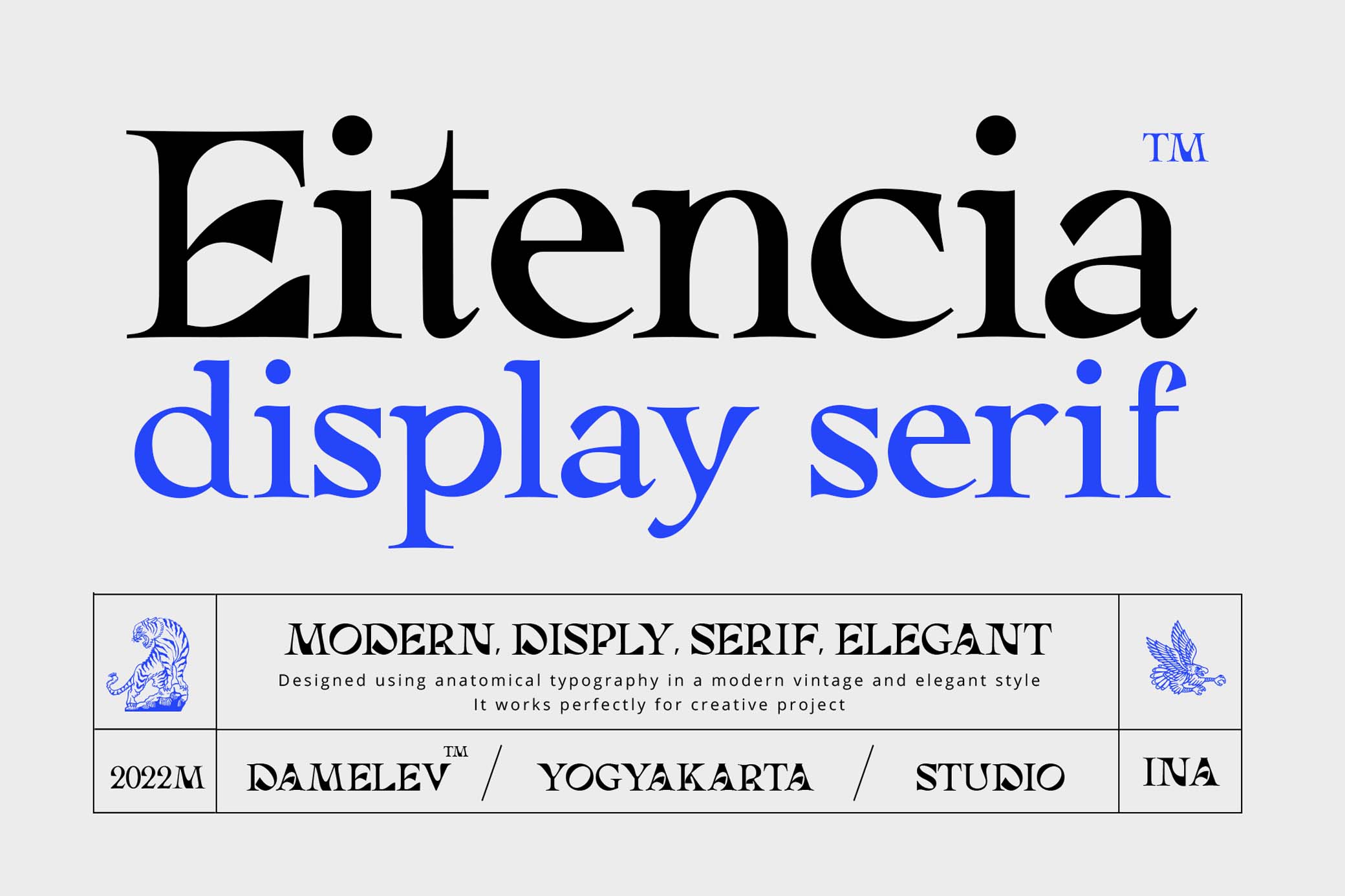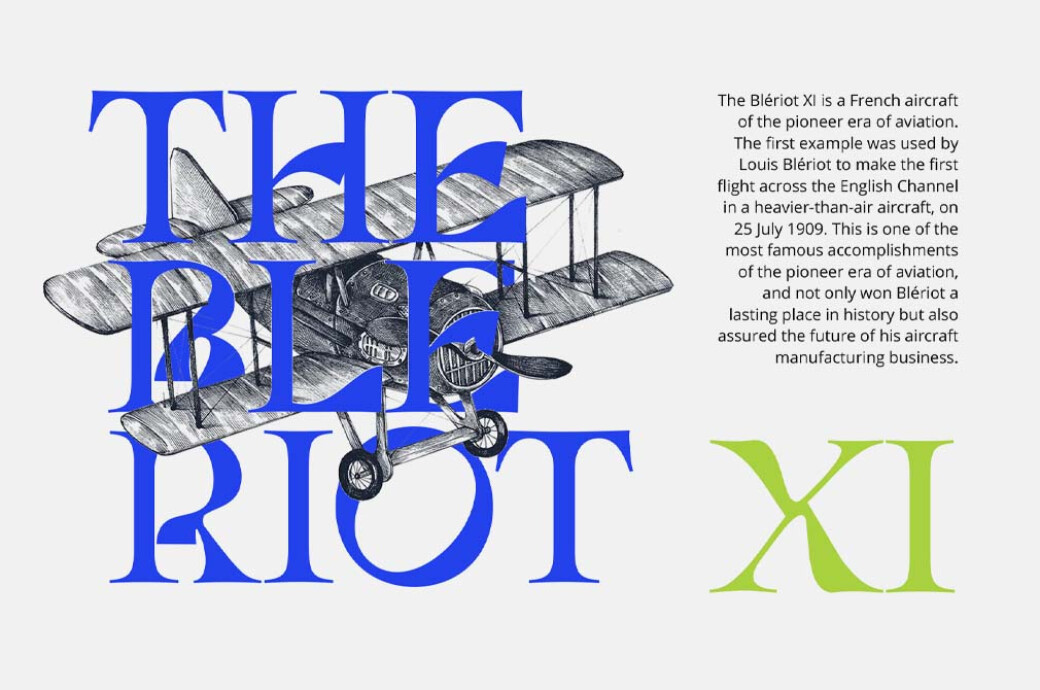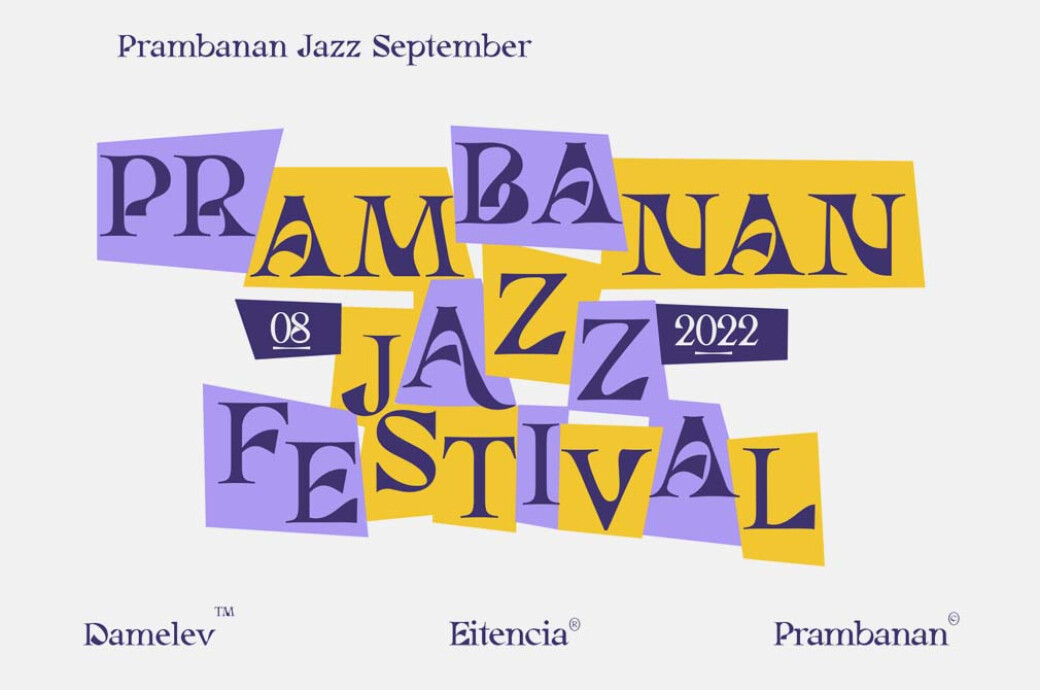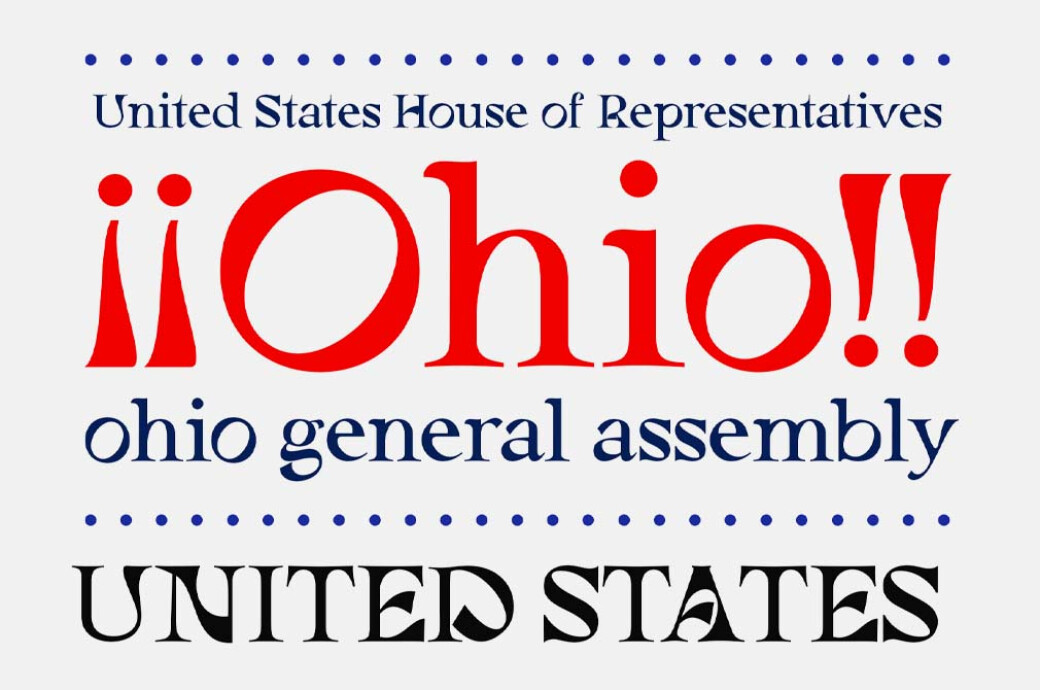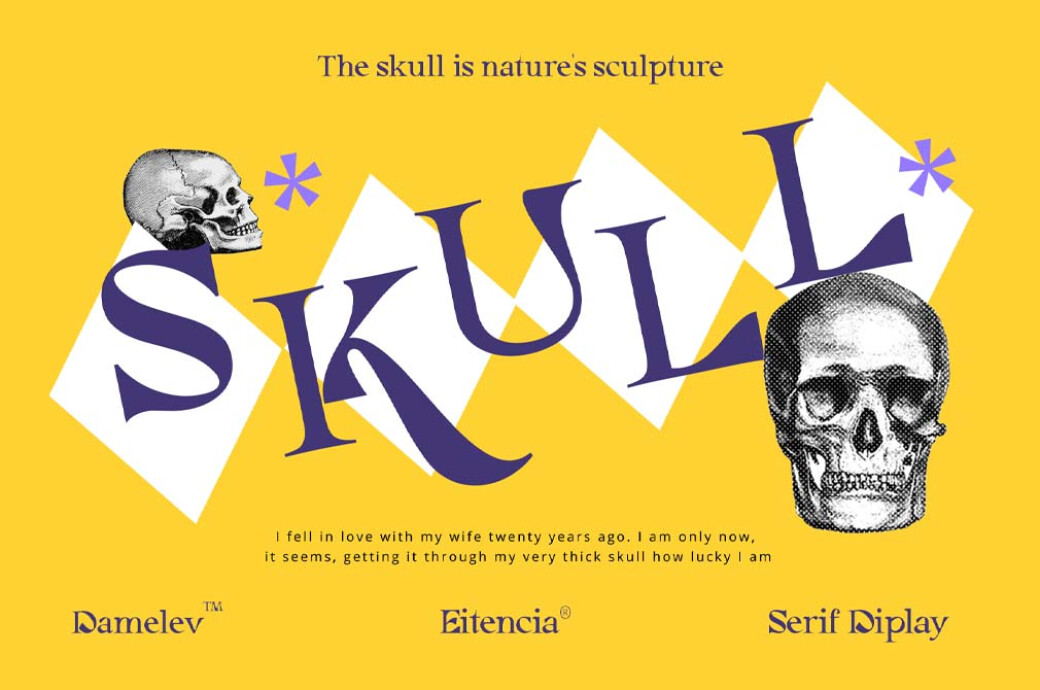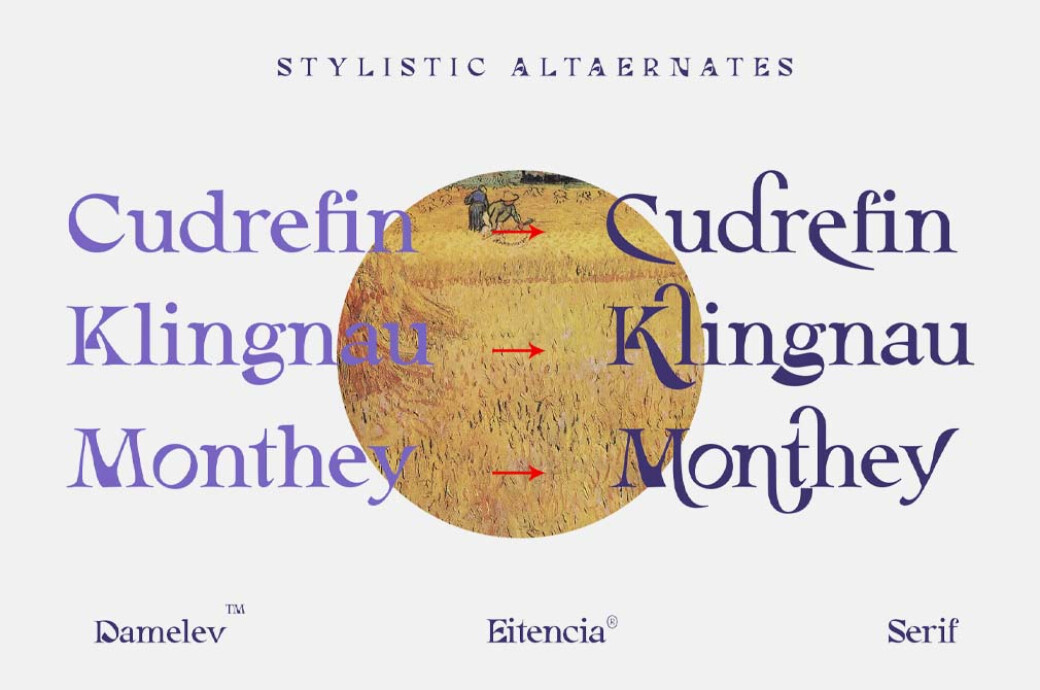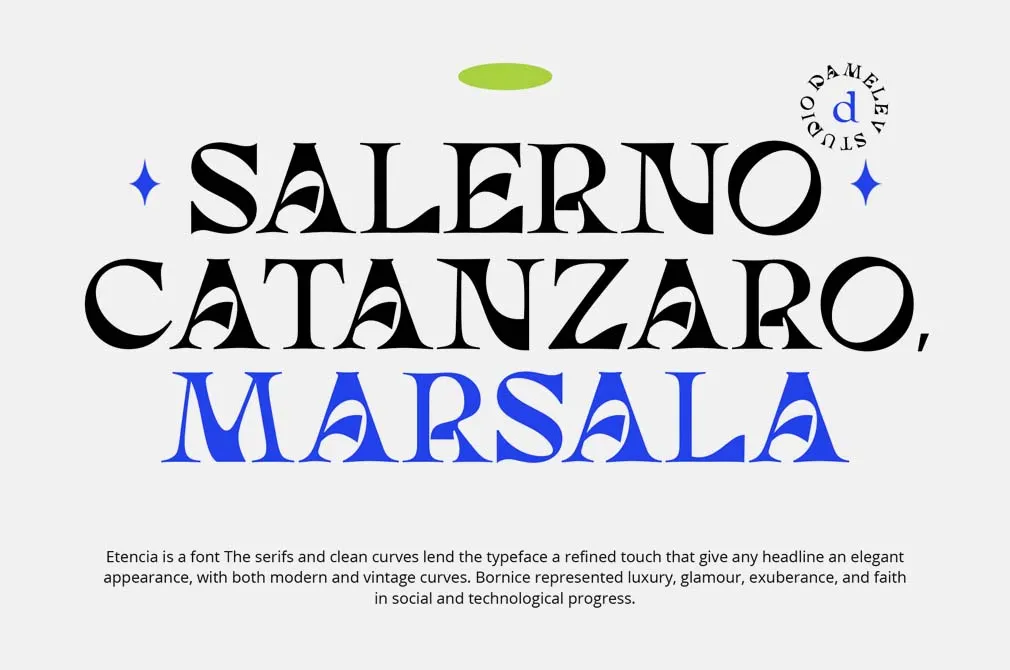
Eitencia Display Serif
Dear fans of reinvented Art Nouveau, we heard your prayers and are eager to present a pure quintessence of modern sophistication and vintage fluidity of line. A stroke of Post-Impressionism in this font is what your design truly desires.
We offer you an abundance of elaborated uppercase and lowercase letters, alternatives, numerals, and punctuations couched in the same style. The serif created according to anatomical typography also includes multilingual support. The Art Nouveau palette full of earthy hues would be a great source of inspiration — ideal for retro posters, social media publications, and creative advertisement with a claim to contemporaneity.